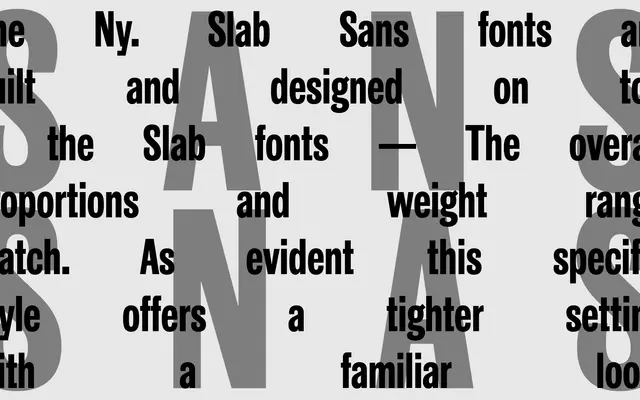
Ny. Slab Sans
A2-Type · Henrik Kubel · 2015
Ny. Slab Sans specimen from A2-Type
A sans-serif companion to the Ny. Slab, sharing its proportions and nine-weight range, drawn for the 2015 redesign of The New York Times Magazine.
Part of the broader Ny. family designed by Henrik Kubel for The New York Times Magazine, the Slab Sans strips away the slab serifs whilst keeping the underlying structure and weight range intact. Nine weights from Thin to Black allow a consistent typographic texture alongside the serifed variants in the same system. The tighter setting makes it a practical choice for editorial contexts where the Slab Serif's feel is wanted without the additional stroke detail.
Ny. Slab Sans removes the serifs from the Ny. Slab Serif while retaining its proportions and weight range, placing it as a sans-serif companion within a slab-rooted family system originally designed for editorial use.